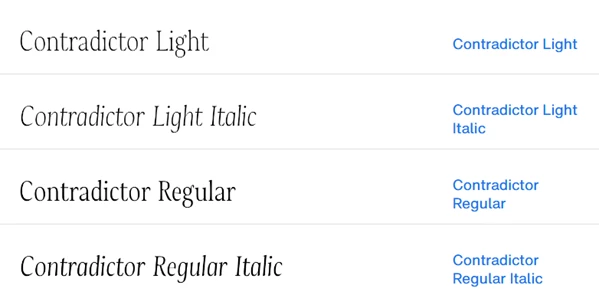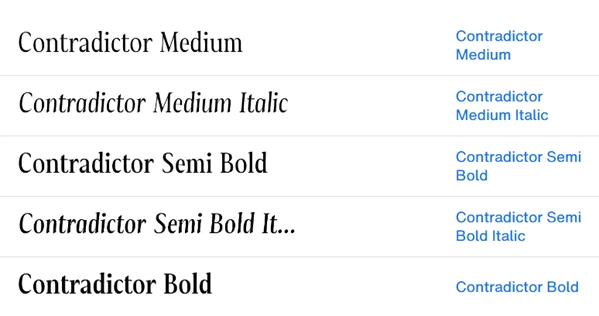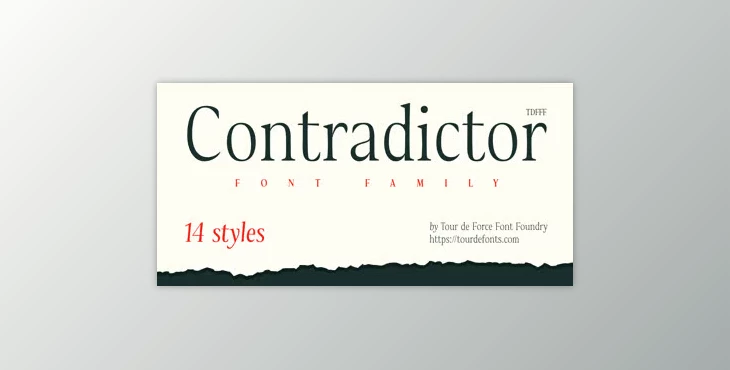
MyFonts - Contradictor Font Family:
The Contradictor Font Family is a new Roman typeface collection with 14 variations. It combines high contrast and elegance with a tall x-height, giving a slightly condensed look along with true italics. What makes this font family unique is its broad charm and creativity combined with a tender slant in the italics and true italics.
Because of its flexibility, Contradictor is best suited for publications and any long-form texts as well as webfont. It also performs well in larger sizes and is suitable for titles, headlines, product logos, outdoor advertising, or posters. This font family has advanced typographic features including gren fractions or standard ligatures which expand their application range.